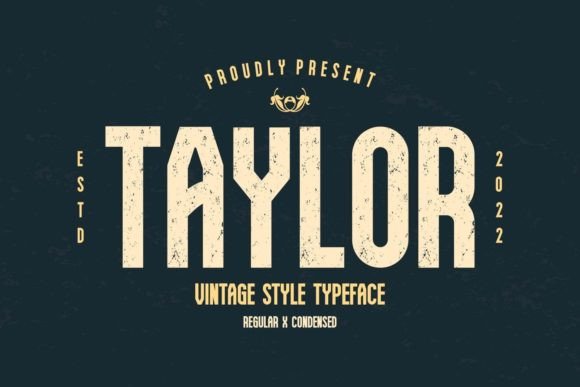
Welcome to the world of Taylor Font, a remarkable display font blessed with elegance and style! This vintage-inspired gem is the brainchild of Mahesa Design, a creative powerhouse renowned for crafting fonts that resonate with beauty and functionality.
Taylor Font boasts a strong and confident demeanor, exuding dynamism in each delicate stroke. Its distinct character adds a touch of nostalgia to any design, evoking memories of bygone eras while maintaining a fresh and contemporary appeal.
Immerse yourself in the versatility of Taylor Font, effortlessly transforming your designs into captivating masterpieces. Whether you're creating logos, branding materials, posters, or eye-catching social media graphics, Taylor Font has the power to elevate your work to new heights.
Unleash your creativity and let Taylor Font guide you towards design excellence. Its vintage charm lends an air of sophistication to any project, while its inherent strength and dynamism ensure your message cuts through the noise and captivates your audience.
Embrace the magic of Taylor Font and embark on a creative journey that will leave your designs indelibly marked with timeless beauty and unforgettable impact. Its versatility knows no bounds, making it the perfect choice for a diverse range of design projects.
Say goodbye to ordinary fonts and embrace the extraordinary with Taylor Font. Its ability to evoke emotion and create lasting impressions will transform your designs into true works of art. Join the ranks of designers who have discovered the power of Taylor Font and unlock the door to creative brilliance.